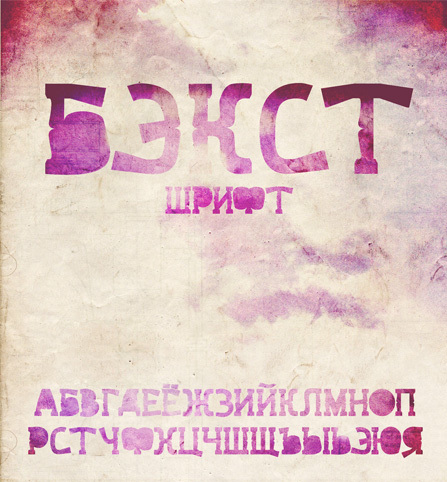
Bext! by Frolov Alexey of MRFrukta is a free distorted display font built from massive, irregular letterforms. Broad slabs, pinched joins, and flared edges give the letters a warped silhouette.
Poster design is its clearest setting, since the uneven silhouettes turn a title into a substantial graphic shape. The same warped construction suits album covers, streetwear merchandise, and club event graphics with an unruly, offbeat attitude. Its swollen curves and blunt projections are particularly convincing for psychedelic music and deliberately strange underground entertainment.